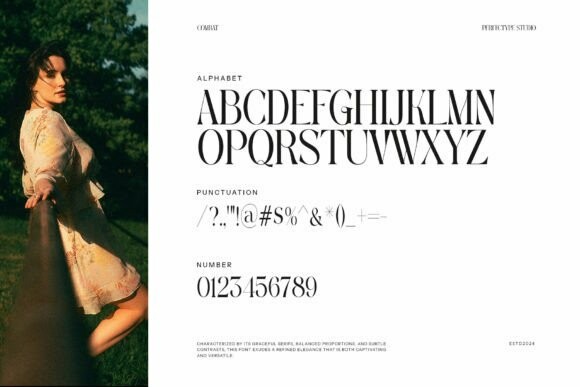
Combat Font
Designer: Perfectype
Combat Font is a vintage serif font that combines classic elegance with a modern twist. Its bold, distinctive letters are perfect for adding a touch of timeless style to any project.